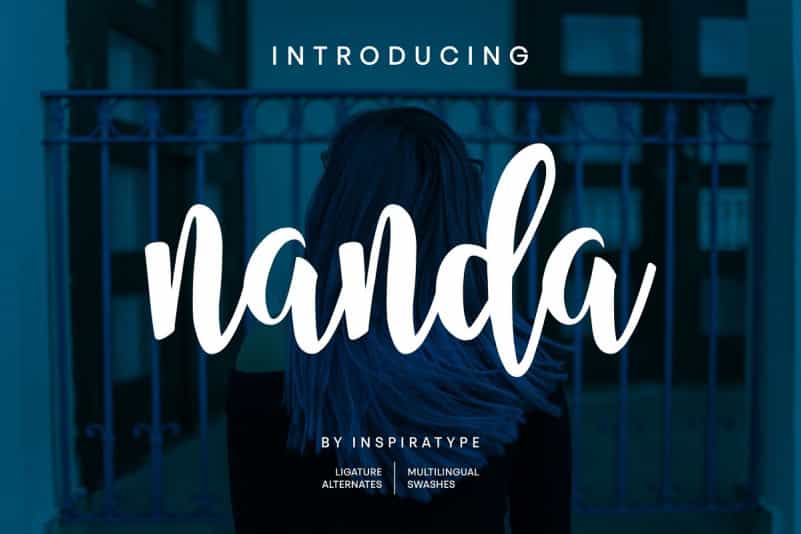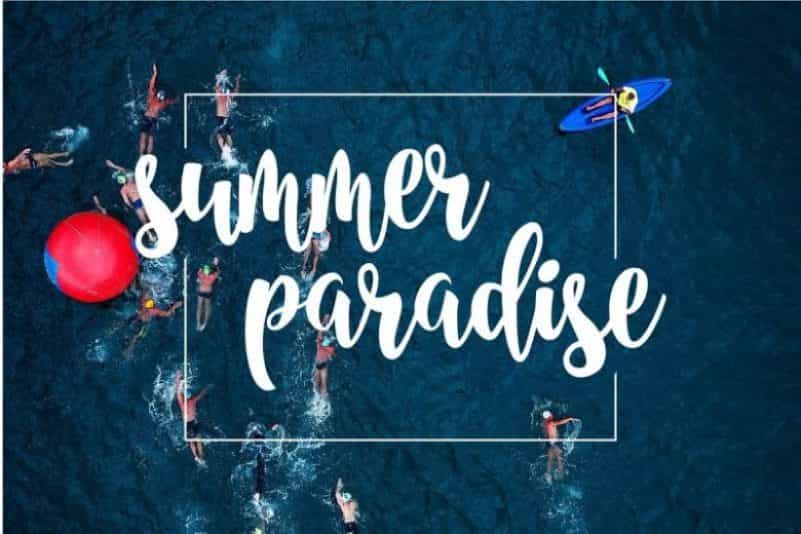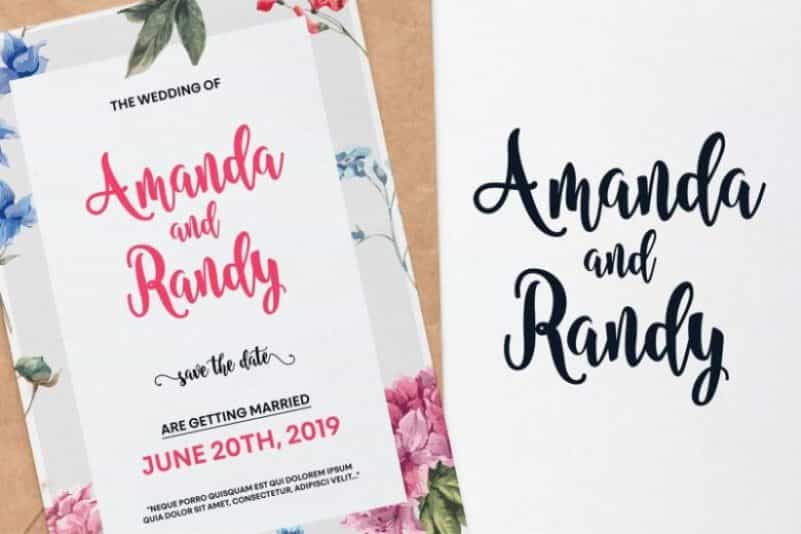
Introducing Nanda Font. Nanda Bold Script Font is a font designed by hand, influenced by the classic posters. It is provided with uppercase, lowercase, numerals, punctuations and so many variations on each character that include OpenType alternates, common ligatures and also additional swash to let you customize your designs.